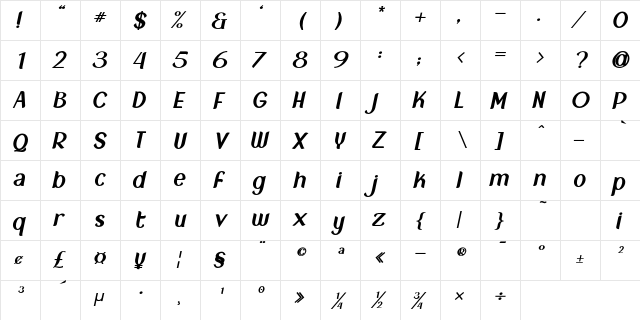
New Crown Bold Italic_DEMO
| Designer | Omotu Studio 2020 |
Design Context for New Crown Typeface
New Crown offers clean, dependable letterforms without strong stylistic allegiance, making it a practical choice for designers who need flexibility. The slanted form adds forward momentum and visual energy. Its bold stroke weight gives it real presence on the page.
Pro Tip: Try New Crown for annotation and caption copy alongside an upright companion — the contrast in angle creates a dynamic but ordered typographic system.